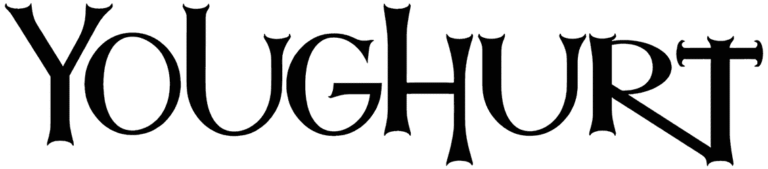
Tokyo Soft Font
Designed byShrine Of Isis Font Foudry
If you prefer your design to seem distinctive and perfectly draw attention to itself, you hit the target. Tokyo Soft is a Japanese font with bold and somehow illegible letters. This Asian font, even without lowercase letters, numerals, and punctuation, can properly promote a wide range of creative designs, such as flyers, covers, and backgrounds, among others.